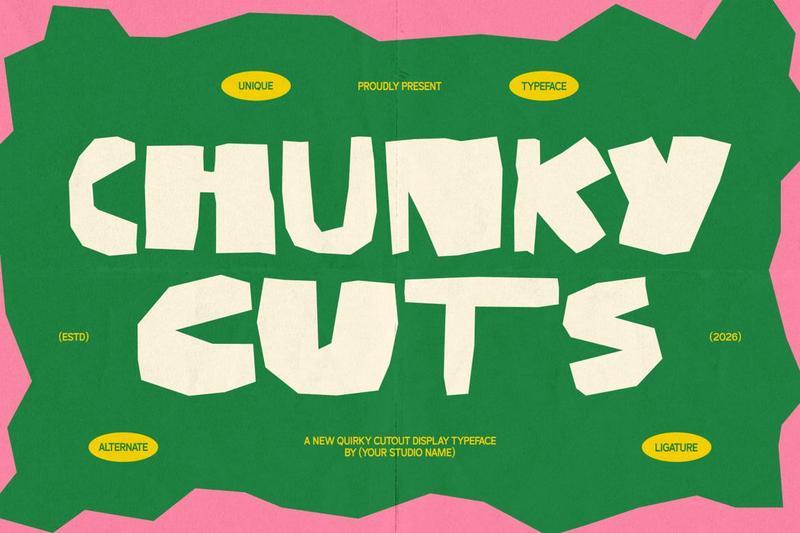
Chunky Cuts – Playful Papercut Font C725NMY
**Chunky Cuts is a playful papercut font** crafted to bring a fun, bold, and handcrafted feel to your creative projects. Featuring chunky letterforms, cutout-inspired shapes, and charming irregular details, it is perfect for kids designs, posters, packaging, stickers, classroom materials, social media graphics, and playful branding. This typeface delivers a cheerful handmade look, making it ideal for eye-catching typography in both print and digital applications. With ligatures, alternates, and multilingual support, **Chunky Cuts** allows you to create lively and memorable designs effortlessly.
+ **Papercut Style** Bold, playful, and handcrafted letterforms
+ **Ligatures & Alternates** Enhanced typographic flexibility
+ **Multilingual Support** Supports multiple languages